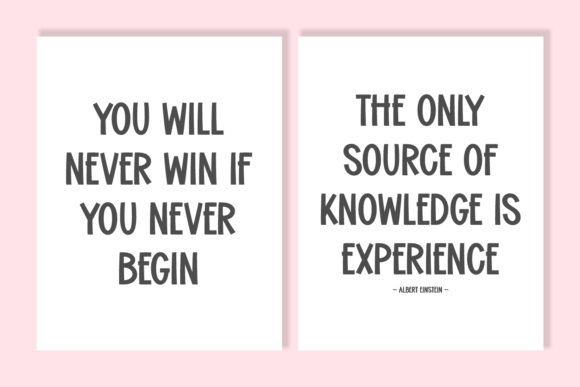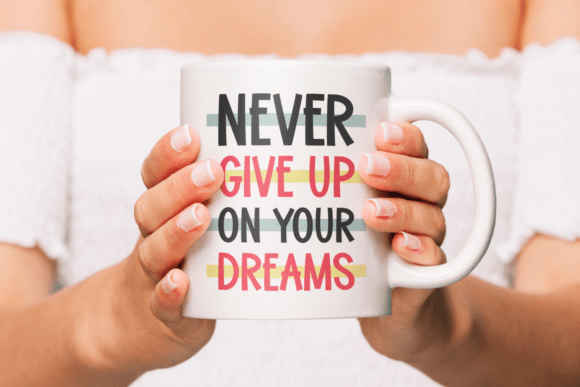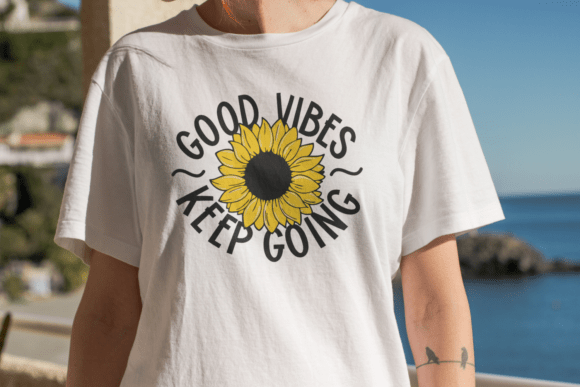
Introduction to Heybel Font
As a designer, there’s no better feeling than seeing your creative project come to life. But what if you could take it to the next level with a font that not only stands out but also puts a smile on your audience’s face? That’s exactly what the Heybel Font is designed to do – bring a sense of playful confidence to your work.
With its heavy weight and unique “bouncy” alignment, the Heybel Font is perfect for creating eye-catching social media headers, bold book covers, and playful brand identities. Whether you’re working on a children’s product, a festive event poster, or an upbeat marketing campaign, this fun display font is sure to make your message stand out.
Key Features of Heybel Font
- Unique, modern font style with transparent background
- Perfect for use in logos, branding, and digital graphics
- Comes with a comprehensive character set, including Latin and Cyrillic scripts
Honest Review: Heybel Font
I recently had the chance to work with the Heybel Font, and I must say, it’s been a game-changer for my creative project. The high-quality design and elegant feel make it a fantastic resource for any design-related work.
- ✨ The font has a unique and modern design that adds a touch of sophistication to any text.
- ✨ The transparent background option allows for easy integration with any background image or color, giving you complete design freedom.
- ⚠️ The font might not be suitable for projects that require a lot of bold or italic text, as it can become difficult to read.
- ⚠️ The font family is relatively small, so you might not have as many variations to choose from as you would with other fonts.
Overall, I’m very impressed with the Heybel Font. It’s a high-quality design resource that’s perfect for any creative project that requires a touch of elegance and sophistication. With its transparent background option and free download, it’s a must-have for any designer’s toolkit.
Tips for Getting the Most Out of Heybel Font
To get the most out of Heybel Font, experiment with different font sizes, colors, and combinations with other design elements. You can also use Heybel Font in combination with other high-quality design resources to create a unique and professional-looking design.
Heybel Font is commonly used in creative projects such as logo design, branding, and typography-based art. Its high-quality design and transparent background make it a versatile design resource for any project.